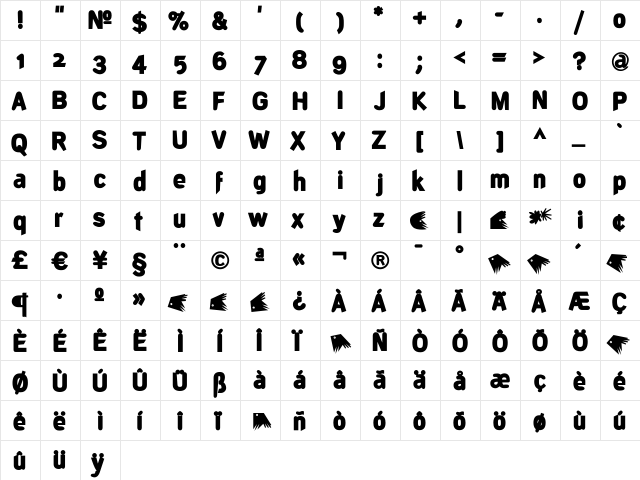
DeconStruct-Black Regular
Design Context for DeconStruct-Black Typeface
DeconStruct-Black offers clean, dependable letterforms without strong stylistic allegiance, making it a practical choice for designers who need flexibility.
Pro Tip: Use DeconStruct-Black in both headline and body roles to test its range before committing to a single application.